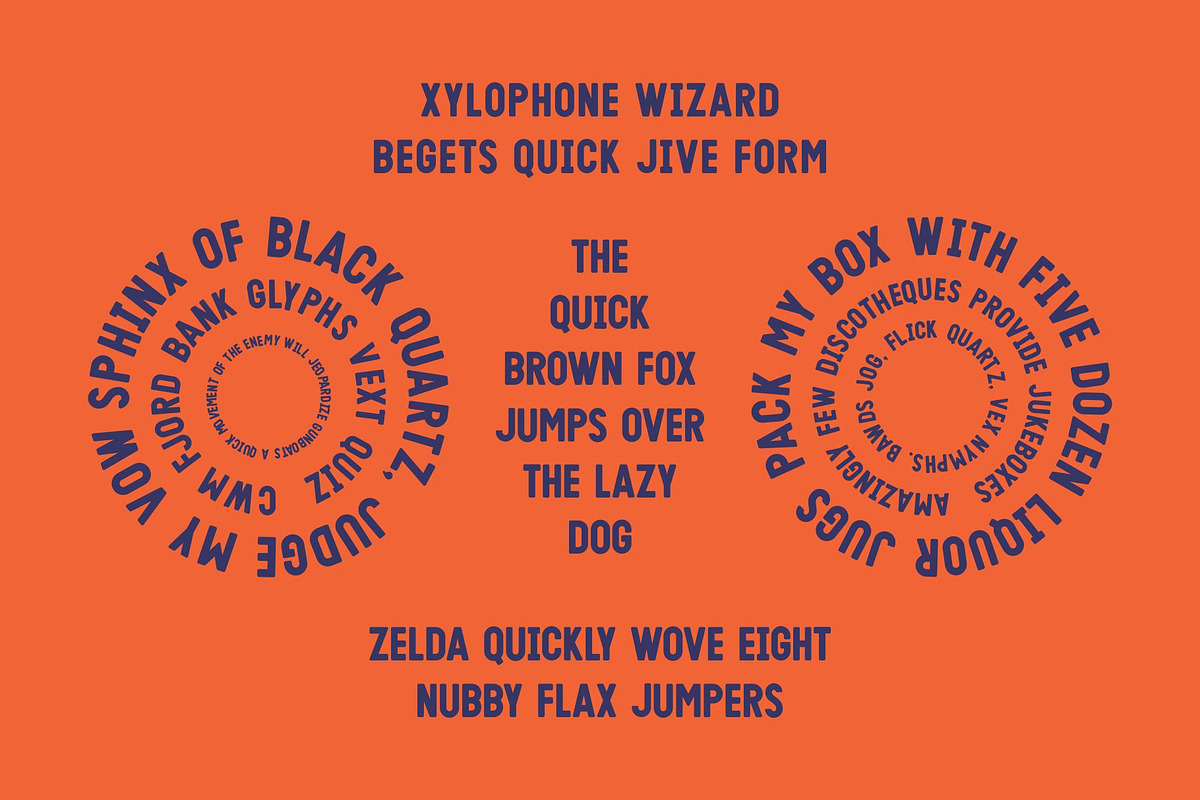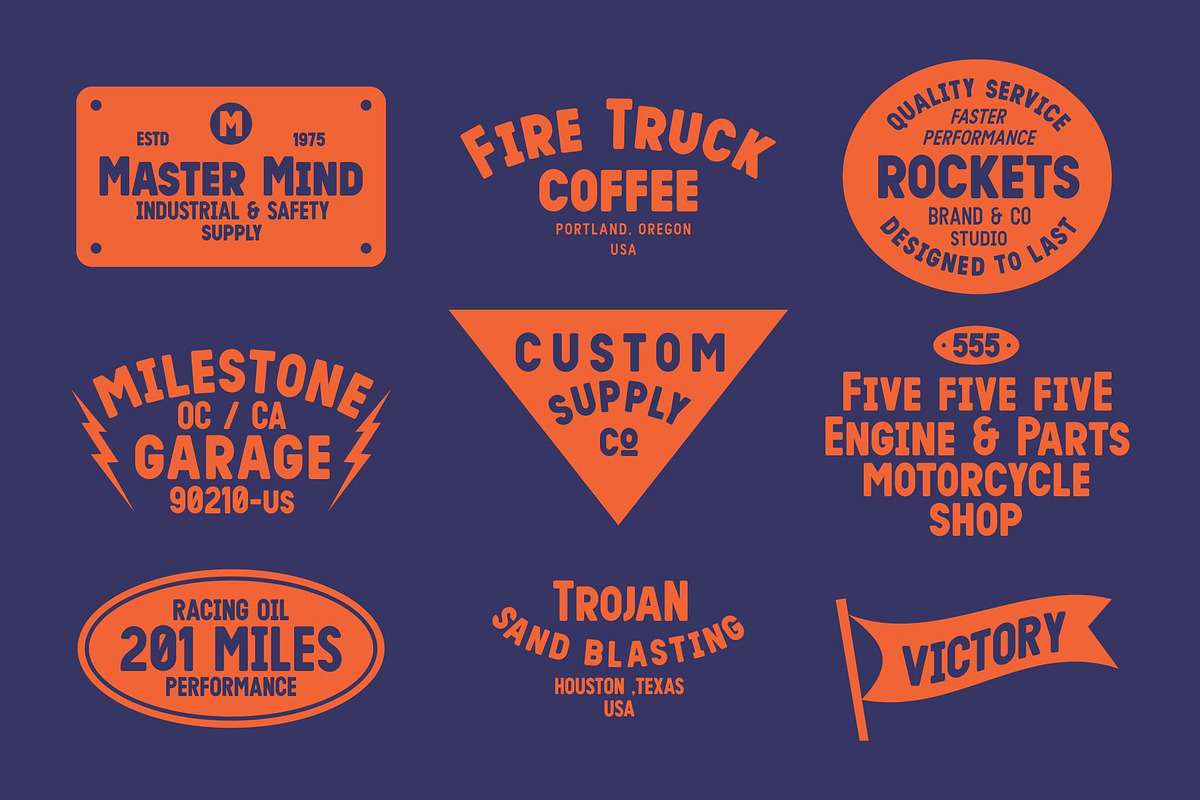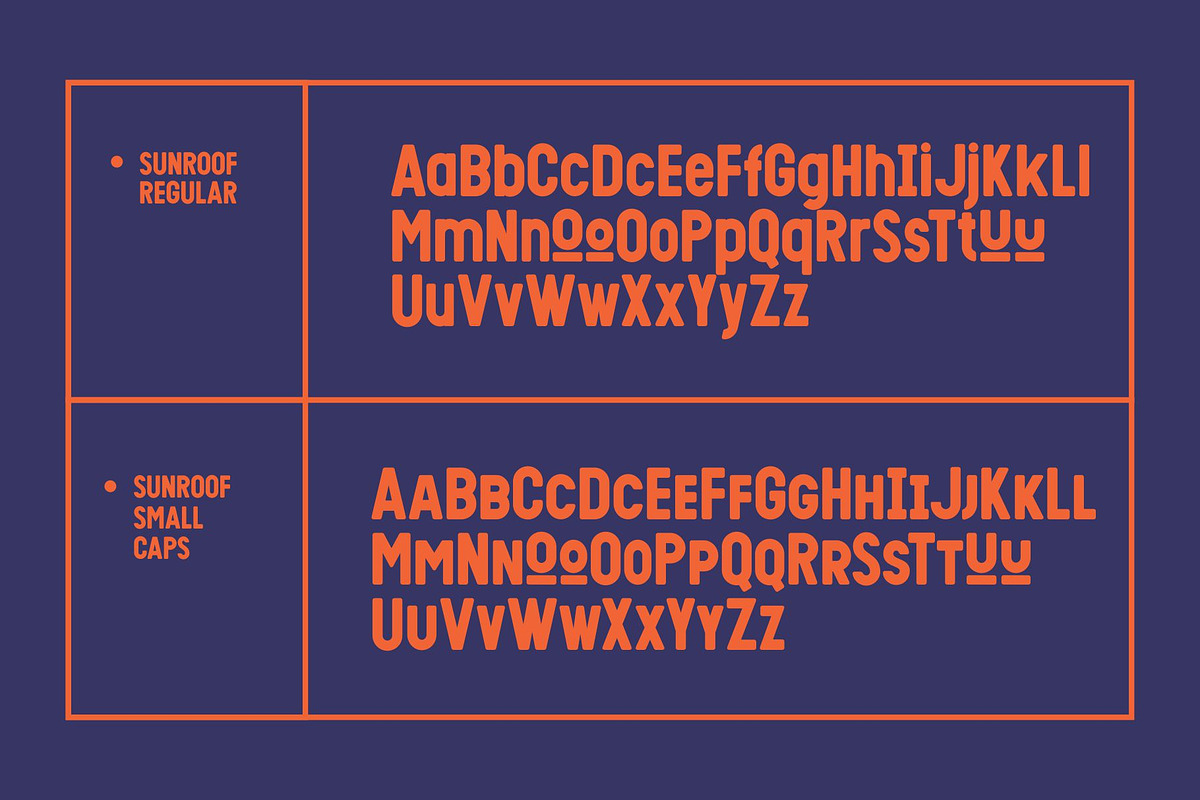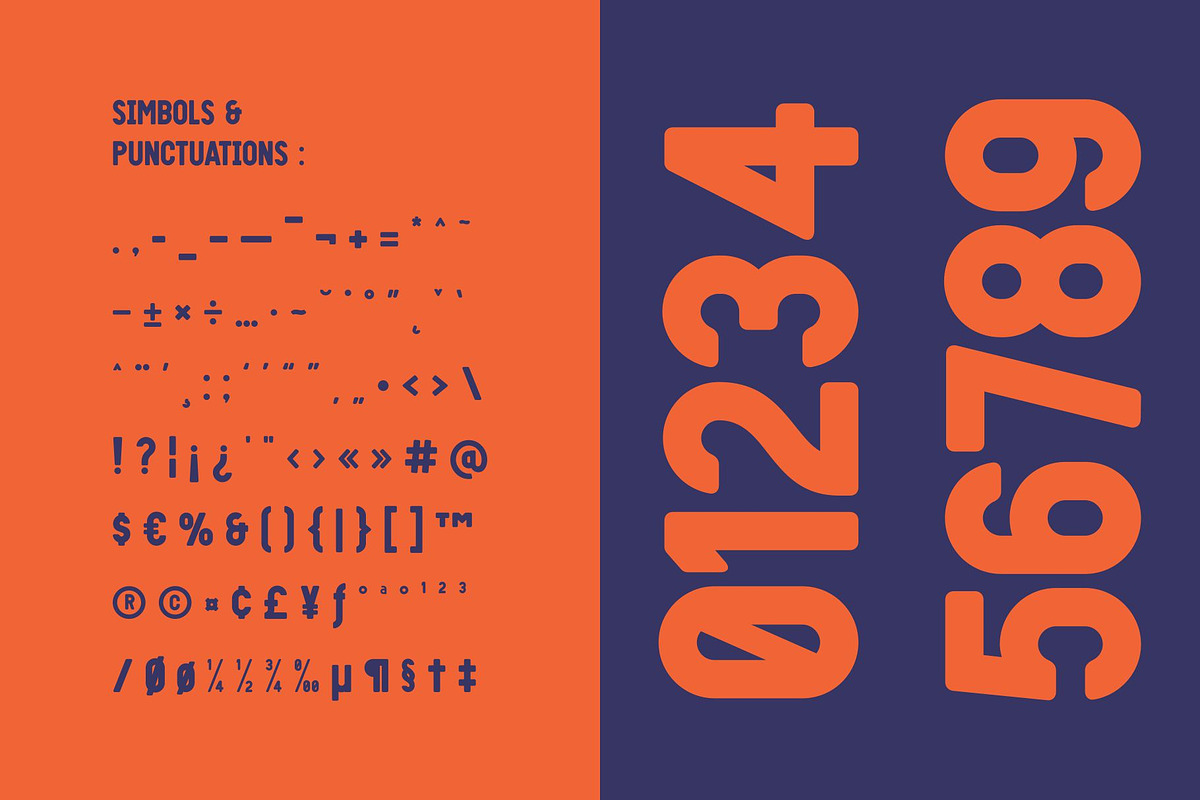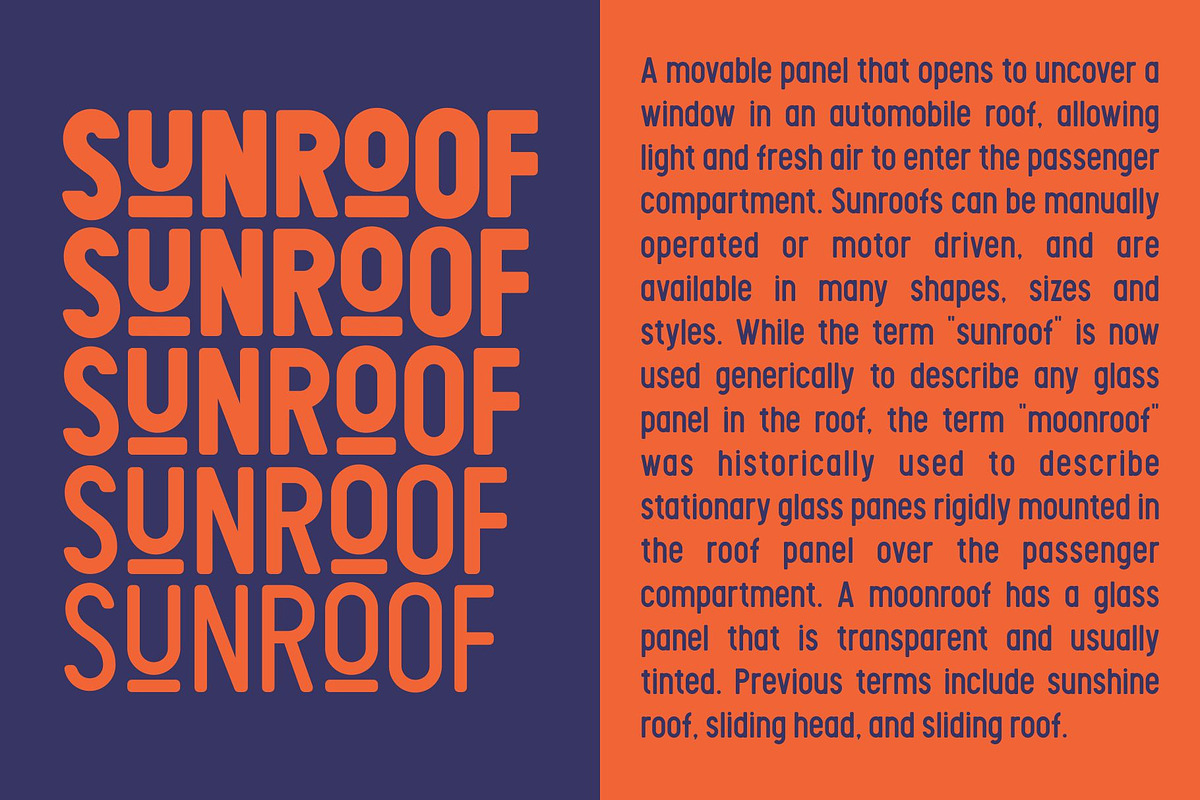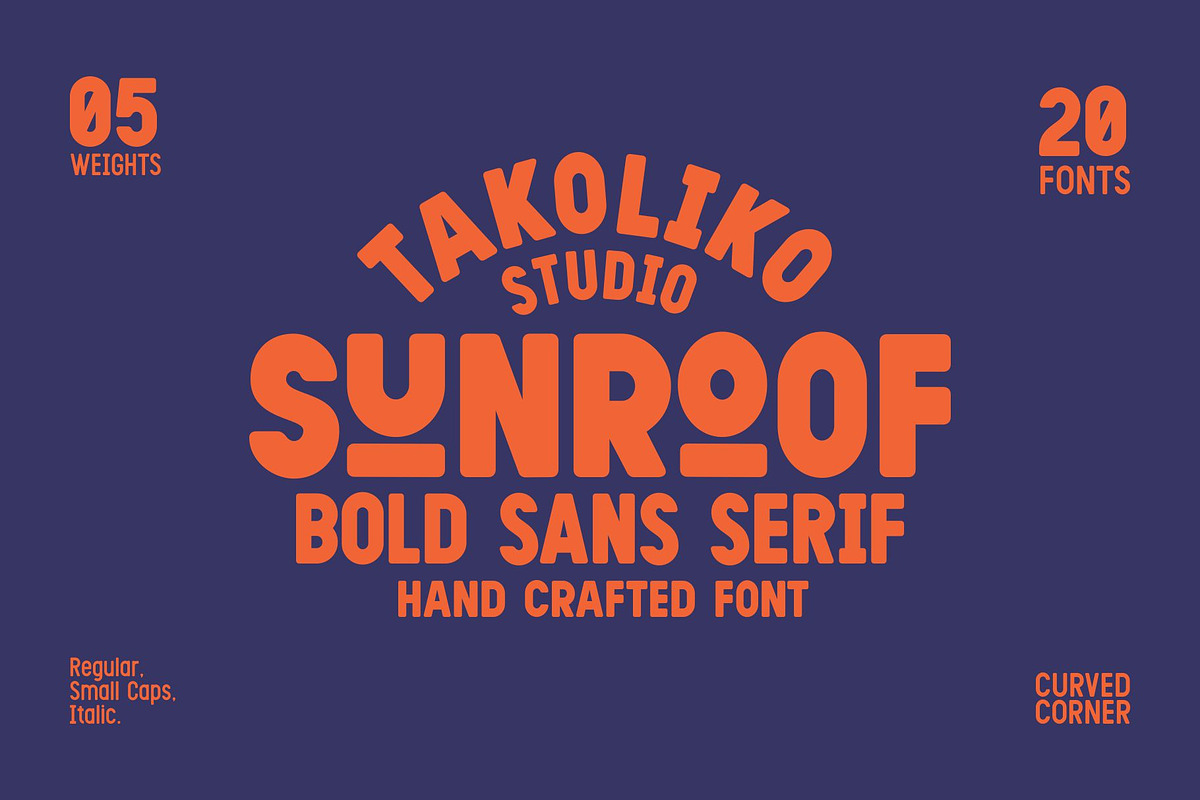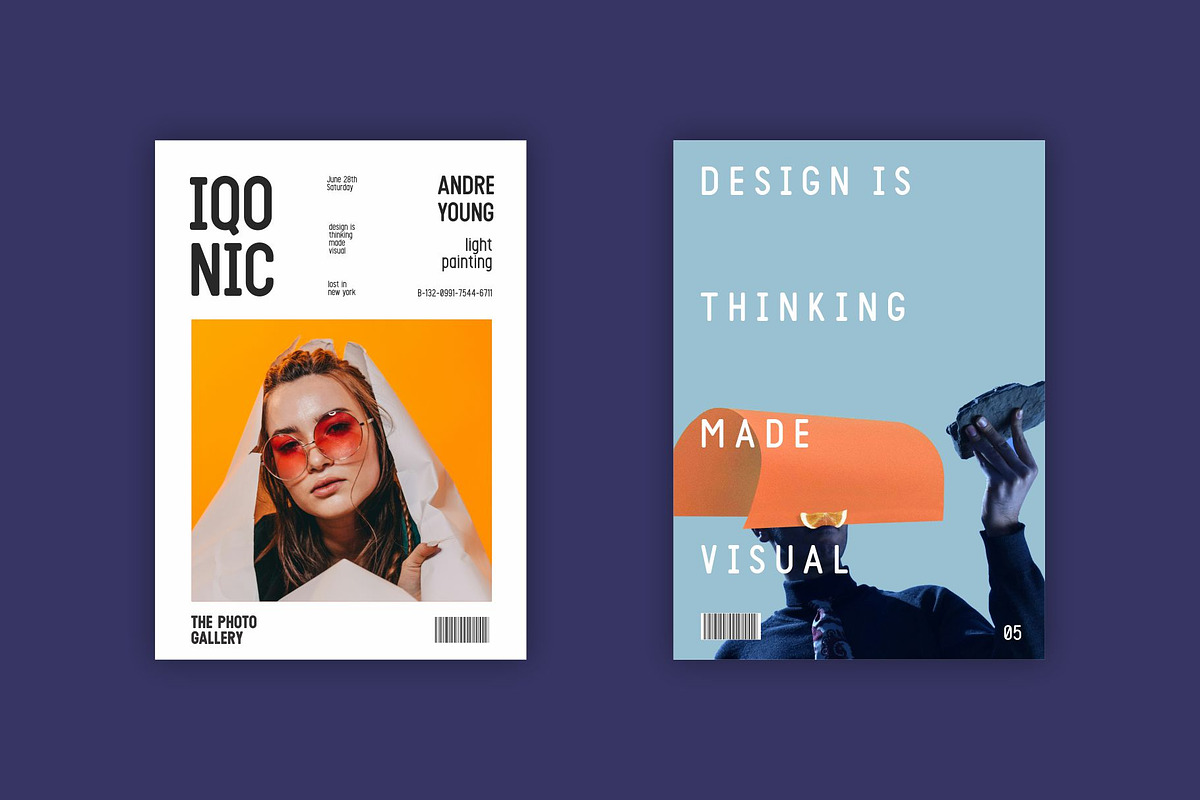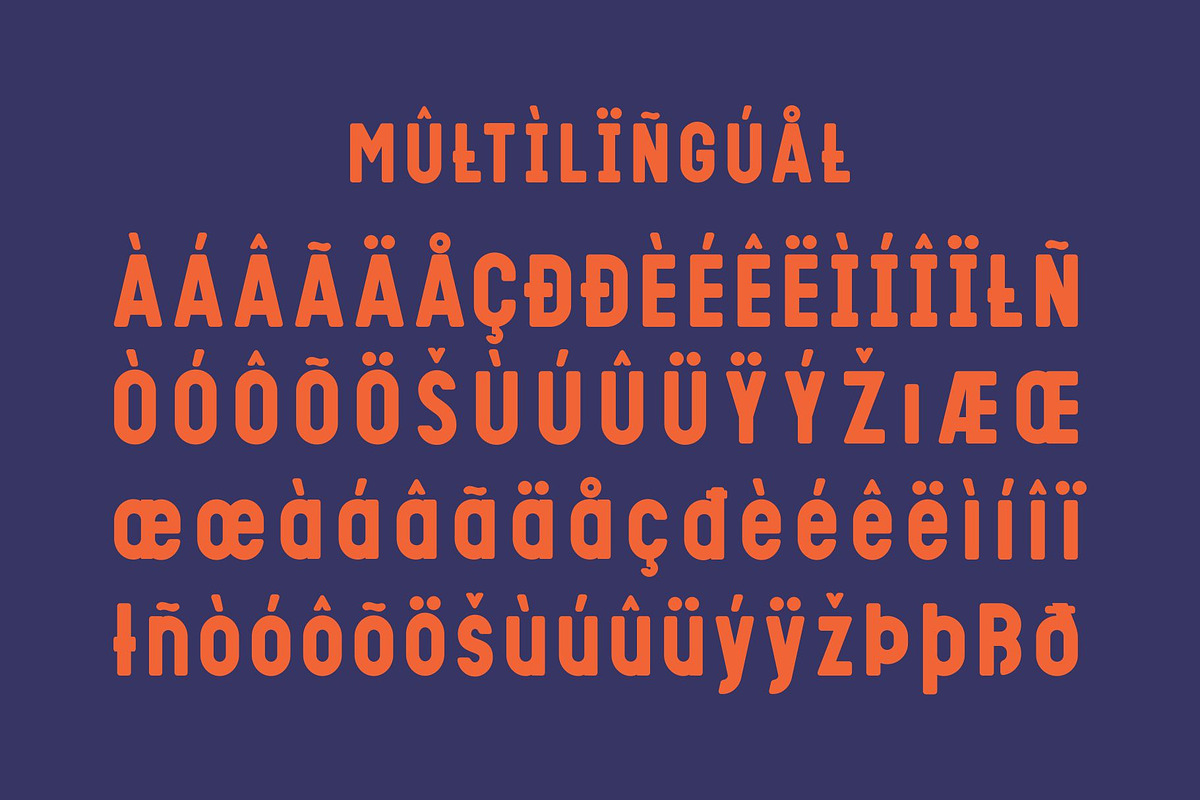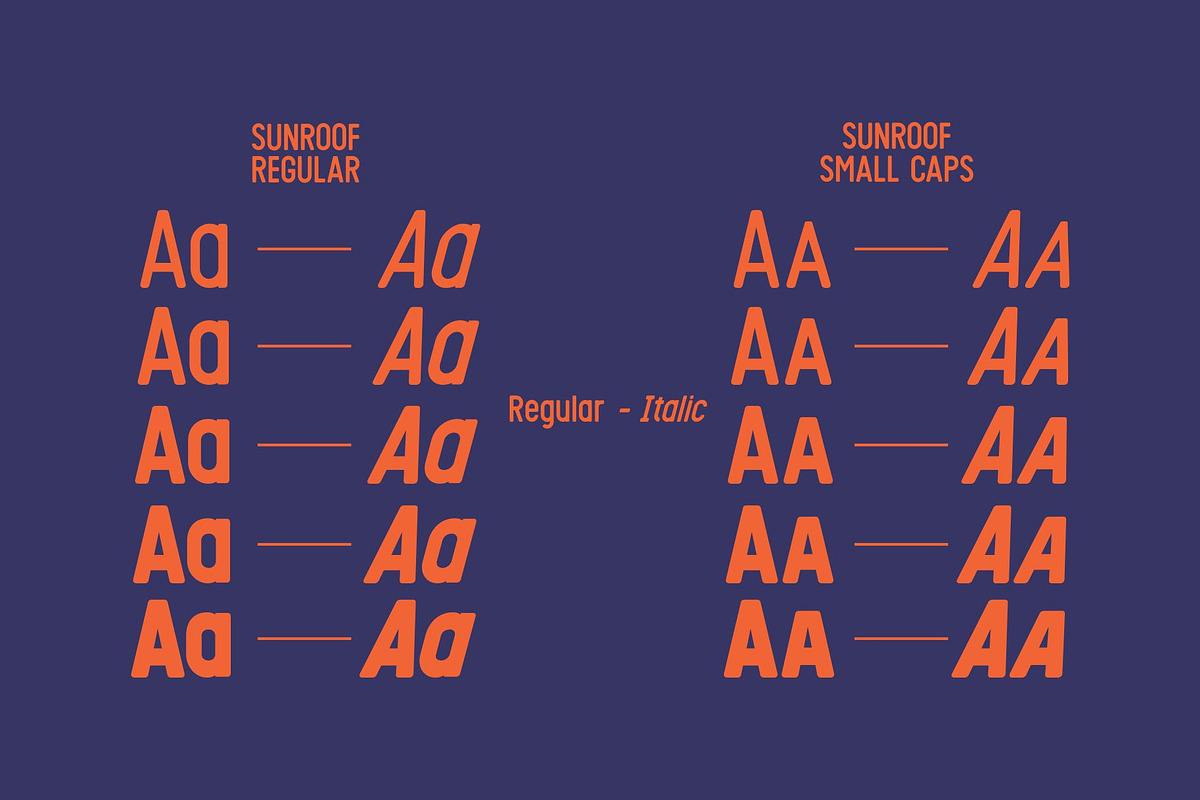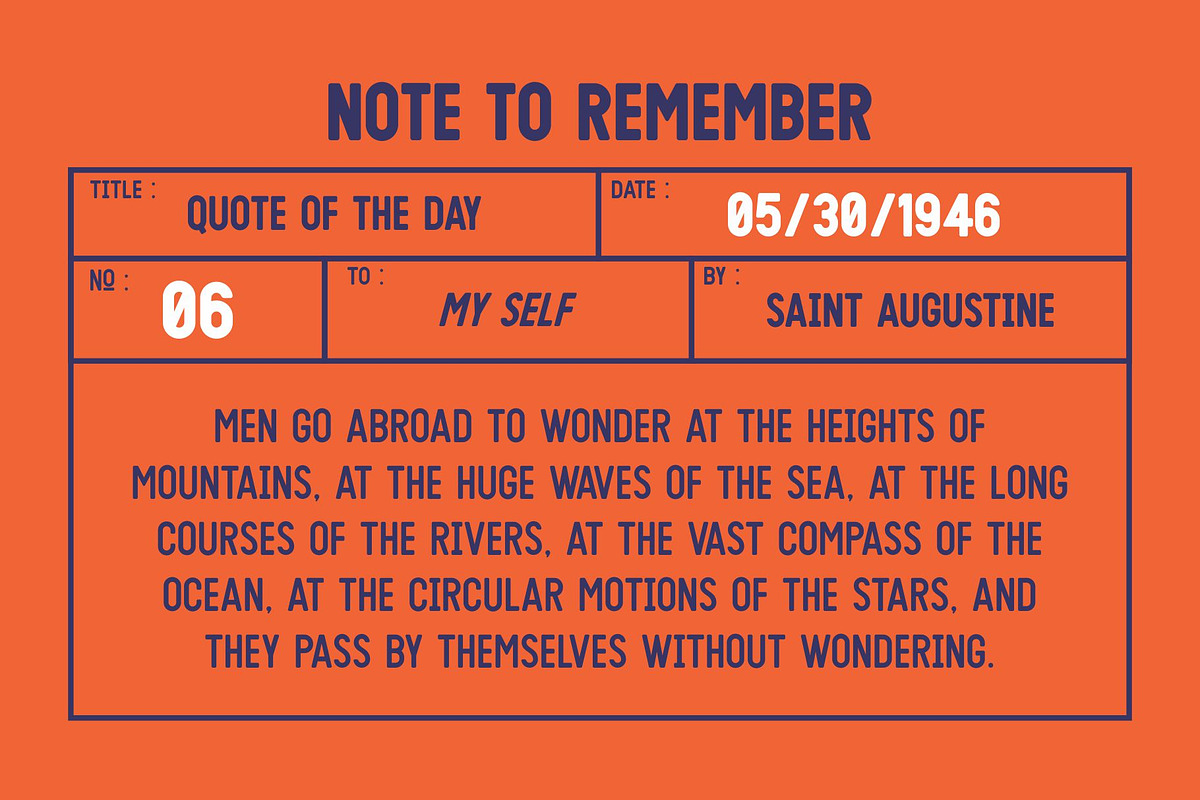
Sunroof - bold sans serif
Discover the bold elegance of Sunroof Typeface, a daring, angular sans serif which commands attention. This font is masterfully crafted with deliberate curves tucked into its corners, adding an engaging twist to its structure. Embodying the essence of modern refinement, the Sunroof Typeface emanates precision and style that amplify contemporary expression. This Typeface extends its versatility with two distinct designs—a timeless traditional variant and an audacious small-caps option also came with italic version. The Sunroof Typeface invigorates your design project with vibrant, modern sophistication.